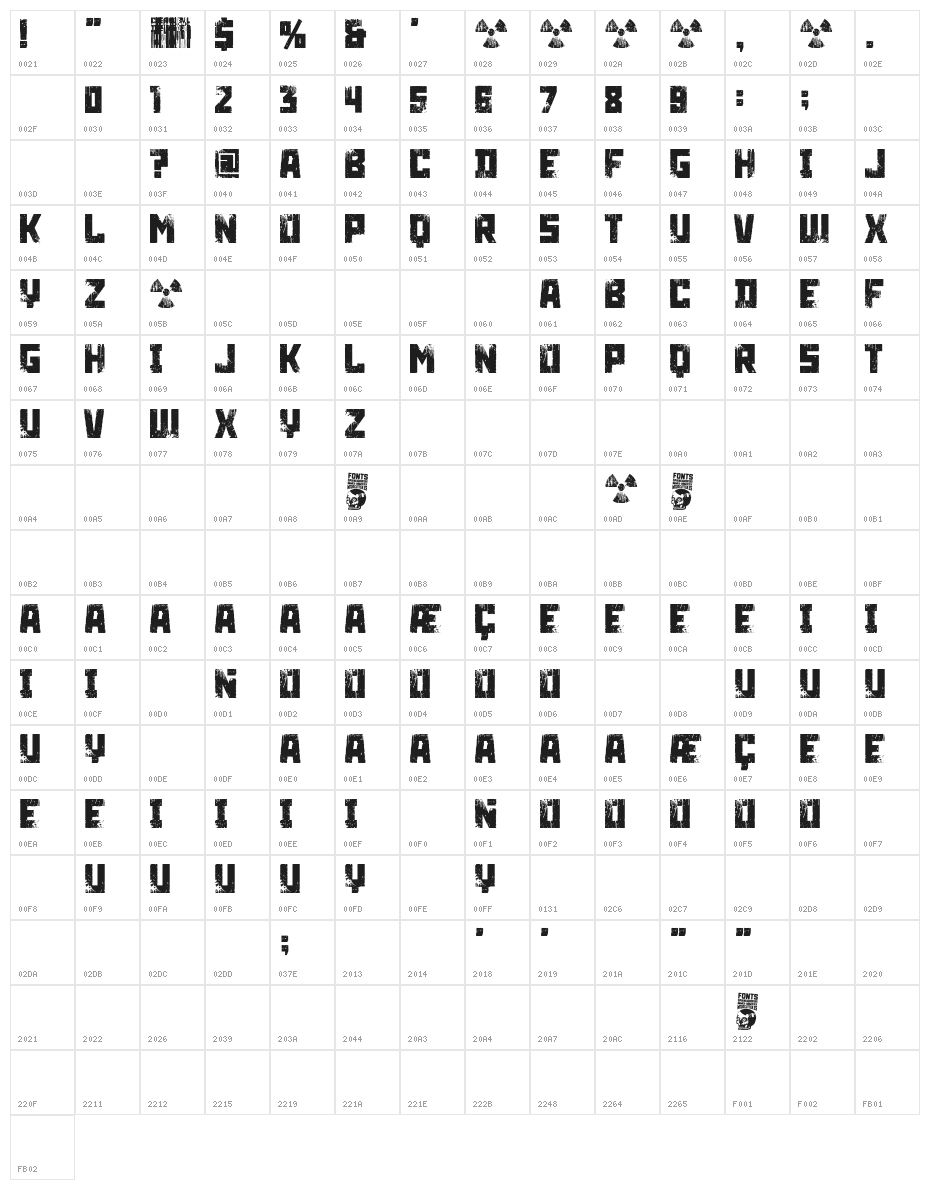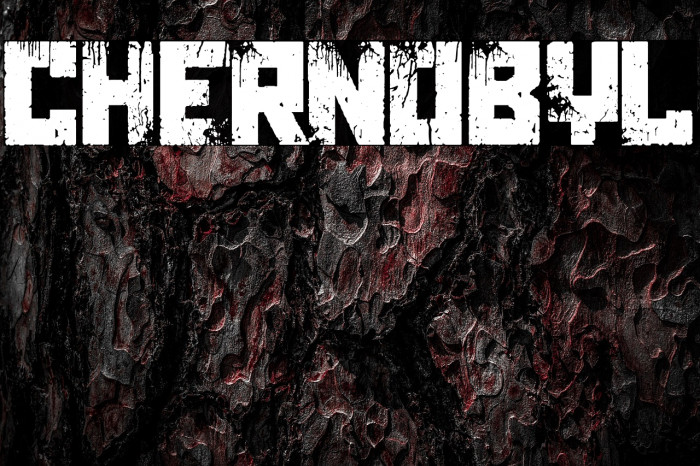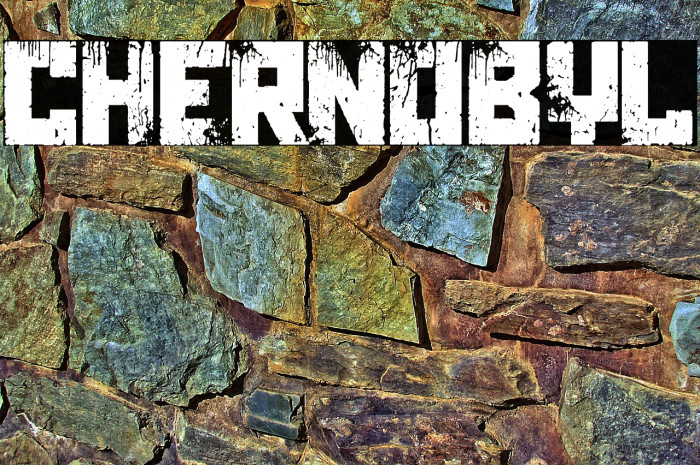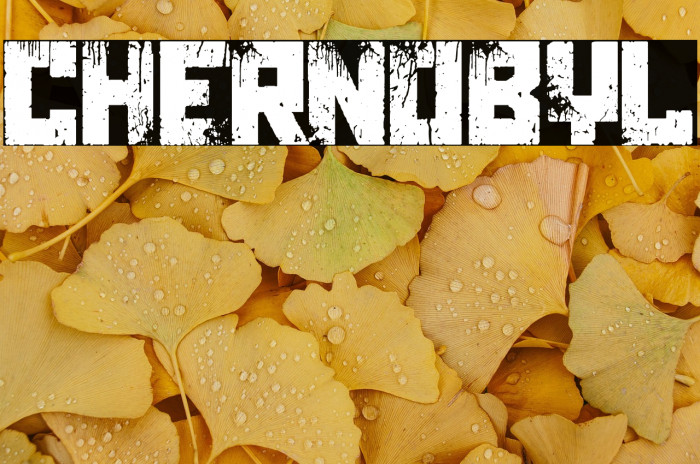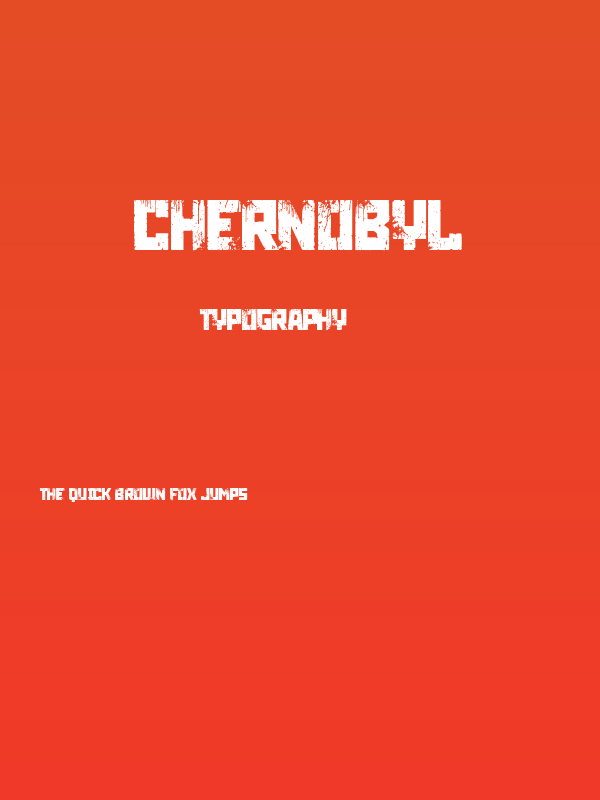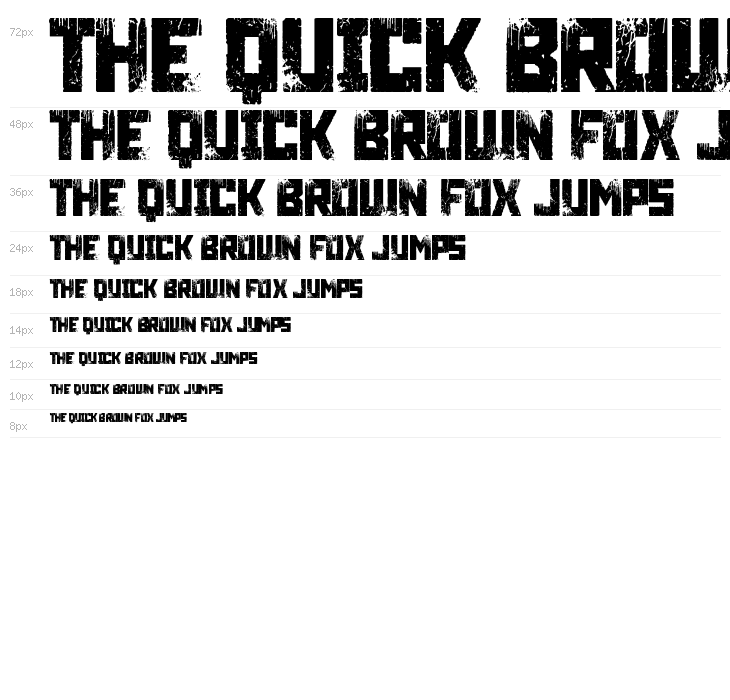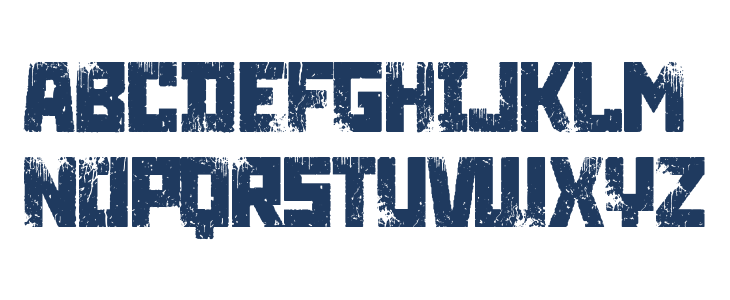
Chernobyl Font
Chernobyl Description
This font features a distressed and grungy style, with each character appearing as if it has been eroded or decayed. The bold, blocky letters are heavily textured, giving them a rugged and worn appearance. The uppercase and lowercase letters maintain a consistent style, with sharp edges and a bold presence. Numbers and special characters follow the same distressed aesthetic, making the font cohesive throughout. This design evokes a sense of decay and destruction, reminiscent of urban decay or post-apocalyptic themes.
| Overall Style | Grunge, Distressed |
| Proposed Projects | Ideal for projects needing a gritty, urban feel such as movie posters, video game titles, or themed event flyers. |